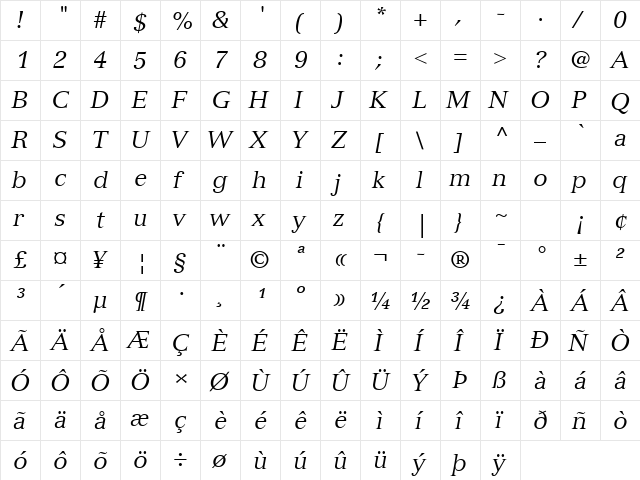
Versailles LT Com 56 Italic Font Preview
| Foundry | Linotype GmbH |
| Designer | Adrian Frutiger |
Design Context for Versailles LT Com Typeface
Versailles LT Com takes a measured approach to typography — its balanced proportions and neutral character make it a reliable workhorse for both digital and print work. The dynamic lean of this cut emphasises speed and emphasis in any layout. The delicate stroke weight brings airiness and refinement to layouts.